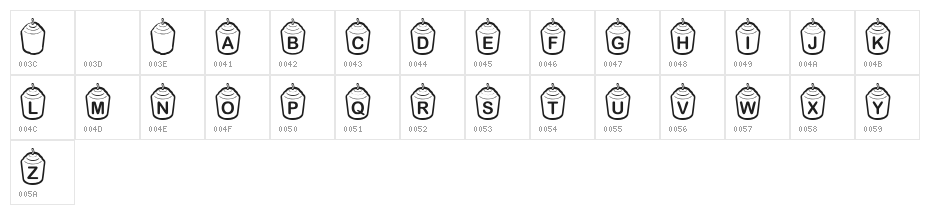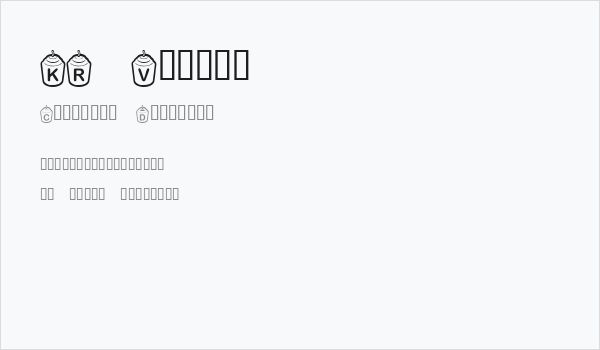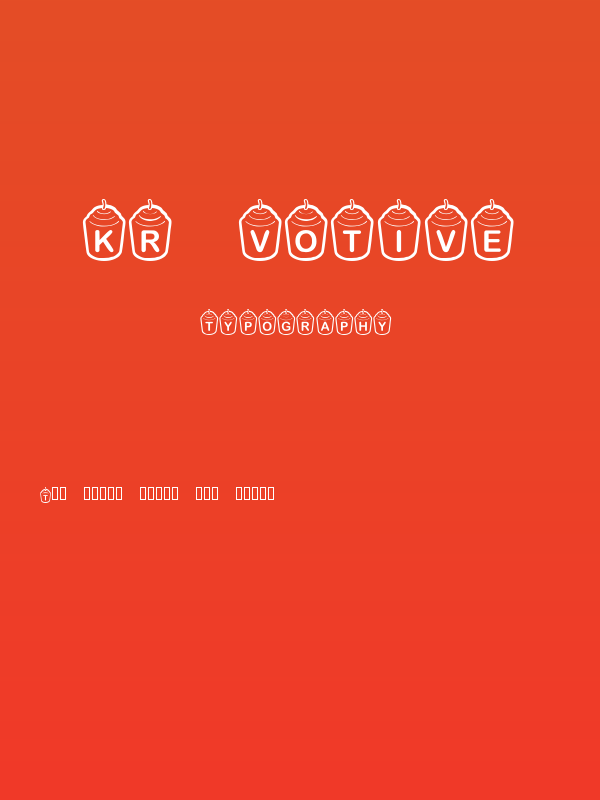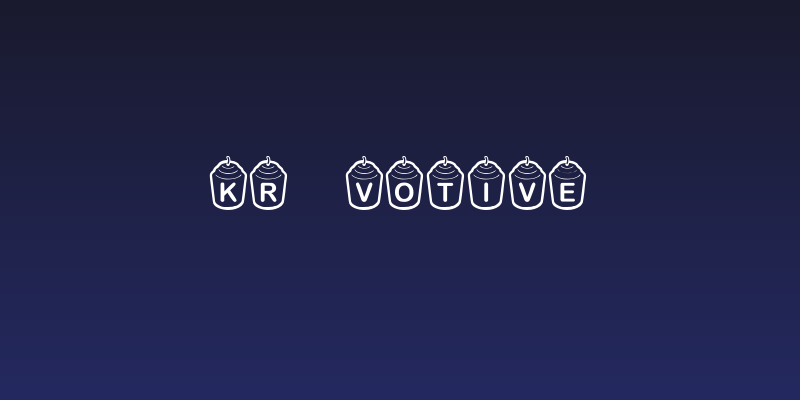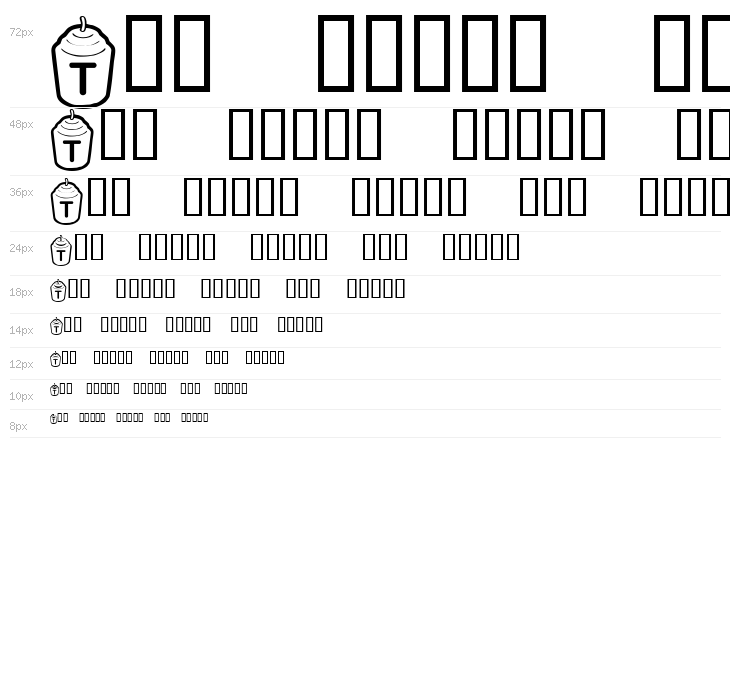
KR Votive Font
KR Votive Description
This decorative font features uppercase letters encased in candle-like shapes, giving it a unique and playful appearance. The letters are bold and clear, making them easily readable despite the decorative elements. The font does not include lowercase letters or numbers, focusing instead on a thematic presentation that is ideal for specific creative uses. The design is consistent across all characters, maintaining a uniform style that enhances its visual appeal. This font is particularly suitable for projects that require a whimsical or themed approach, such as party invitations, holiday cards, or event posters.